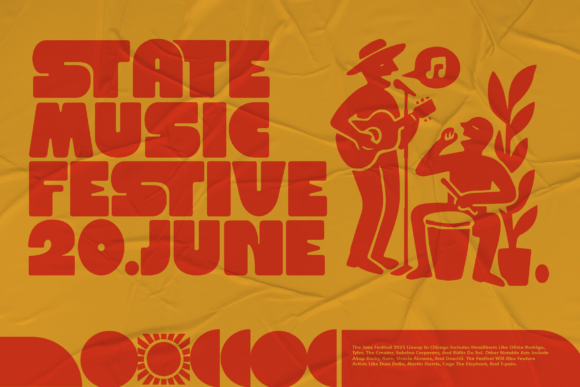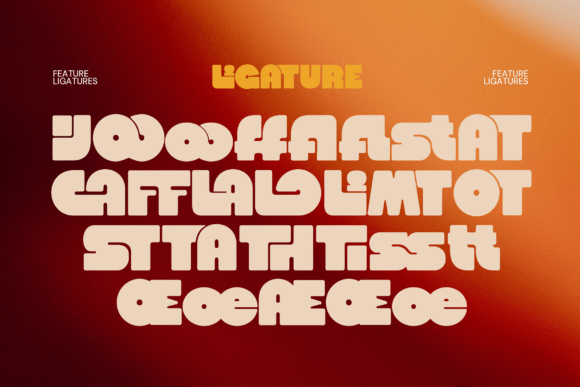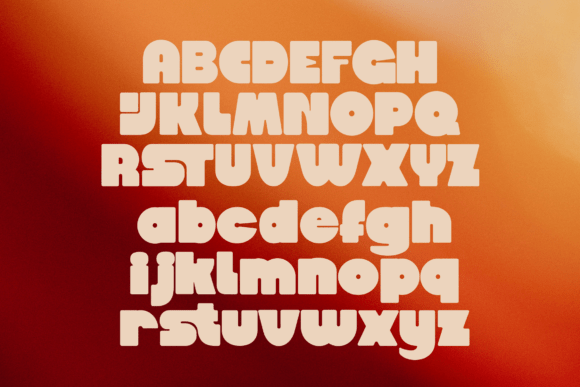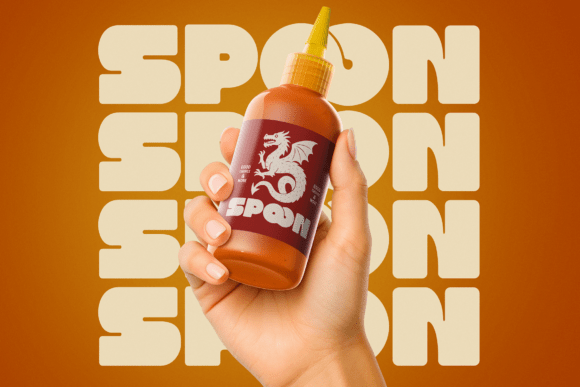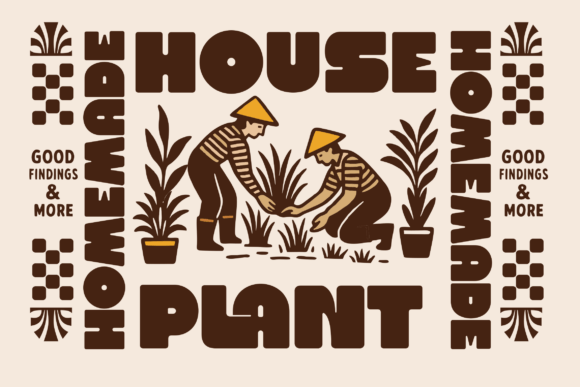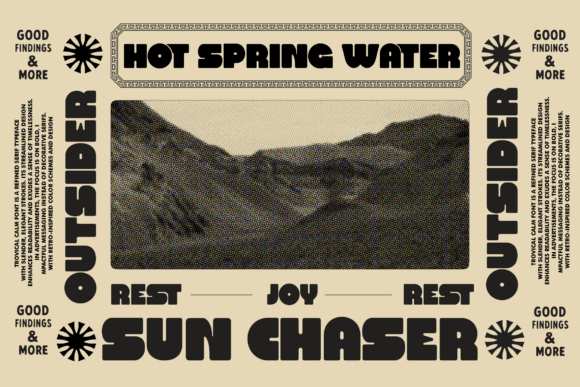
Introduction to Loca Font
Do you remember that moment when you stumble upon a font that instantly transports you to a bygone era? For designers, this is a treasure trove of inspiration, and we’re about to take you on a journey to a world of warm, retro charm with the Loca Font. This stunning display sans-serif font is a masterclass in capturing the essence of 70s and 80s design, with a modern twist that’s sure to elevate your creative project.
With its oversized rounded forms, heavy-weight construction, and clever counter cuts, the Loca Font is a design resource like no other. Its smooth geometry and vibrant energy make it perfect for headlines, posters, album covers, and festival branding – anything that needs a bold, unmistakable voice. Whether you’re working on a print or digital project, the Loca Font is a high-quality addition to your creative toolbox, offering multilingual characters, numerals, and extensive punctuation for wide usability.
Key Features of Loca Font
- High-quality design resource with a unique, creative style, perfect for various projects
- Includes a comprehensive character set, covering a wide range of languages and scripts
- Supports advanced font features, such as ligatures and font variations, for added creative control
Honest Review: Loca Font
As a designer, I’m always on the lookout for high-quality design resources that can elevate my creative projects. Loca Font is one such resource that caught my attention, and I’m excited to share my honest review with you.
- ✨ Unique and quirky design style that adds a touch of personality to any project.
- ✨ High-quality font files that are crisp and clear, even on high-resolution displays.
- ⚠️ Limited character set, which may not be suitable for longer texts or complex projects.
Overall, I’m impressed with Loca Font’s unique design style and high-quality font files. While there are some limitations, I believe it’s a great resource for designers working on creative projects that require a touch of personality and whimsy. Whether you’re a seasoned pro or just starting out, Loca Font is definitely worth checking out.
Tips for Getting the Most Out of Loca Font
Use Loca Font in conjunction with other design resources to create a unique and creative project. Experiment with different font sizes and styles to add depth and visual interest to your design. Consider using Loca Font in a combination with a high-quality image or graphic to create a stunning visual effect.
Loca Font is a versatile design resource that can be used in a variety of creative projects, including logos, brochures, business cards, and social media graphics. It’s a great choice for designers who want to add a touch of elegance and sophistication to their designs. With its transparent background feature, you can easily create designs that are both stylish and functional.